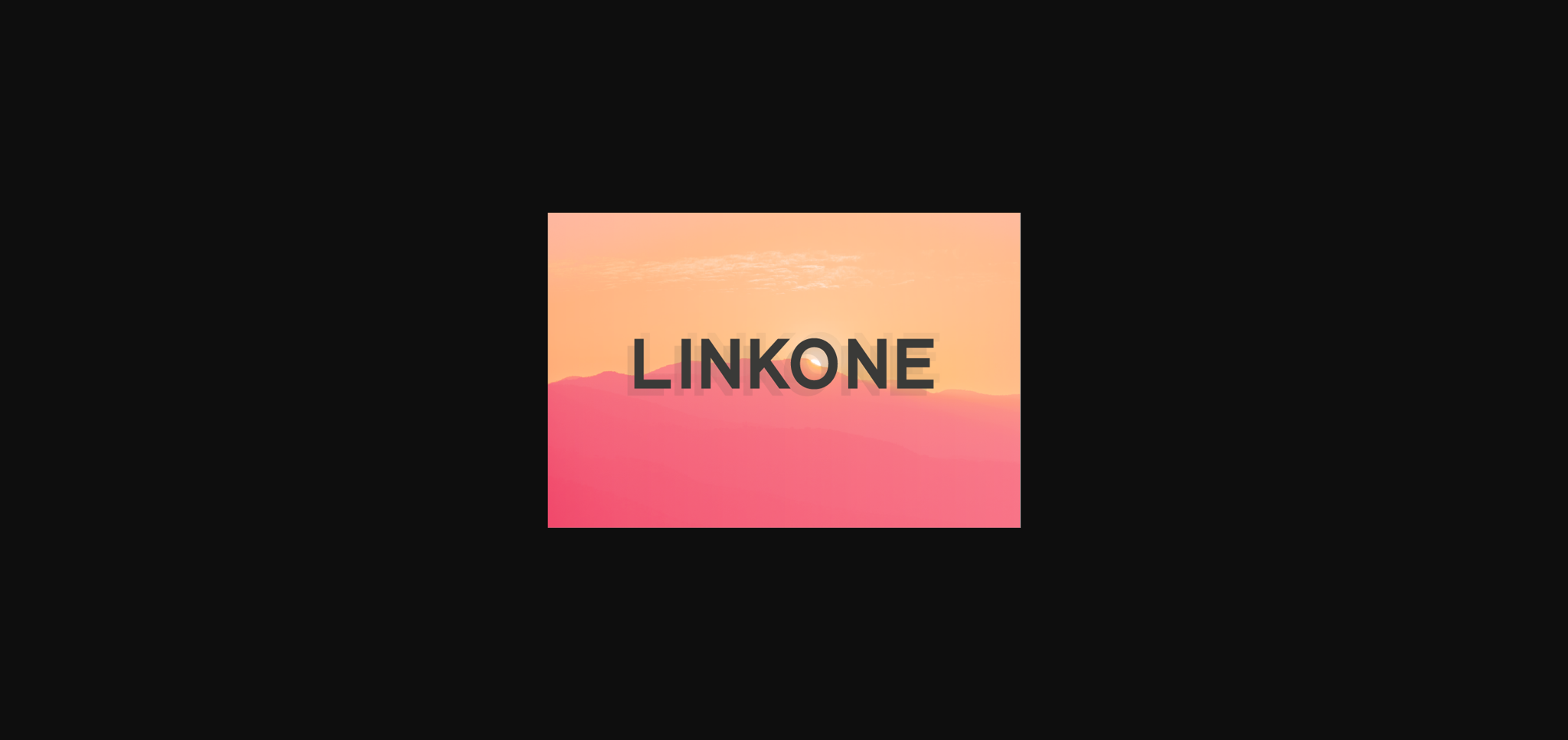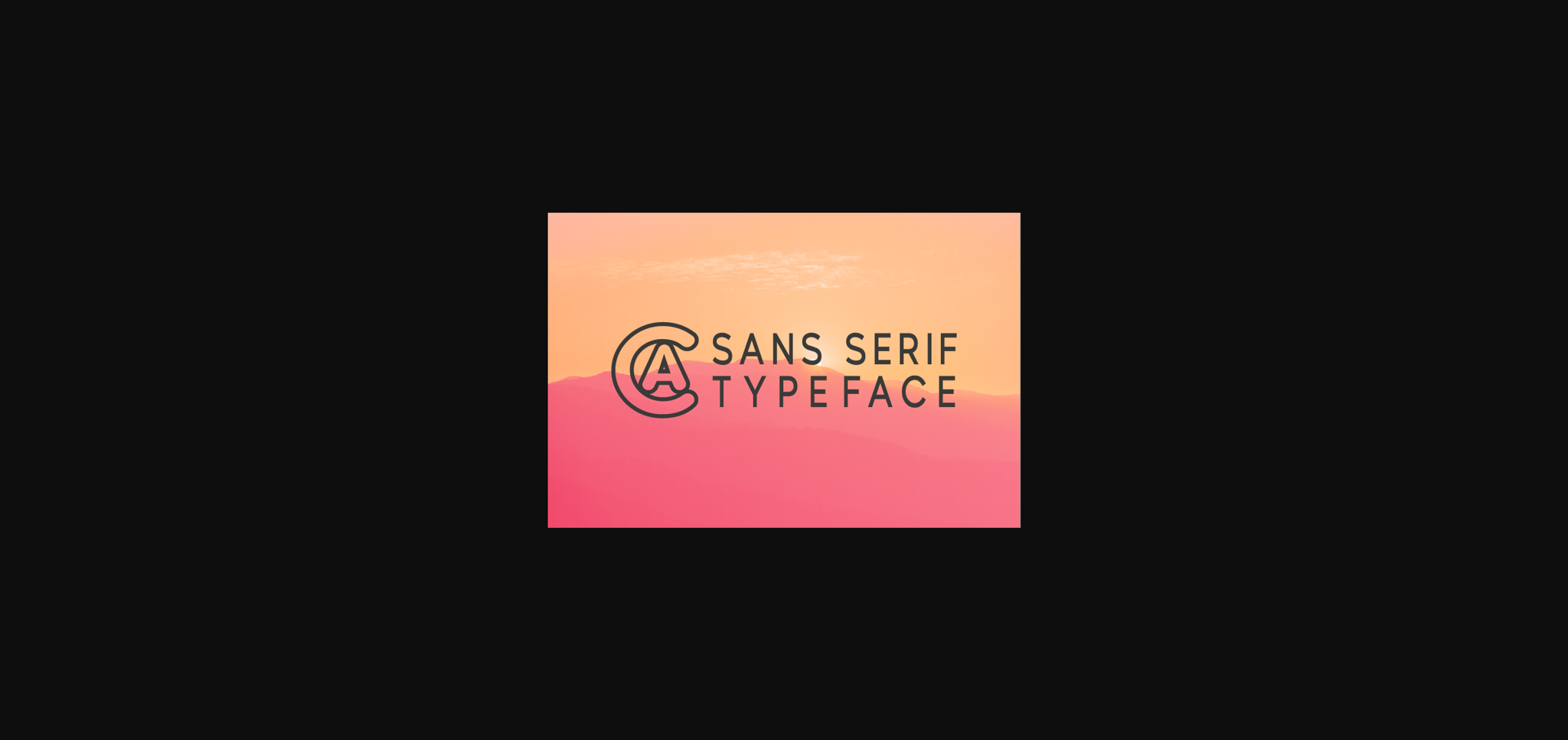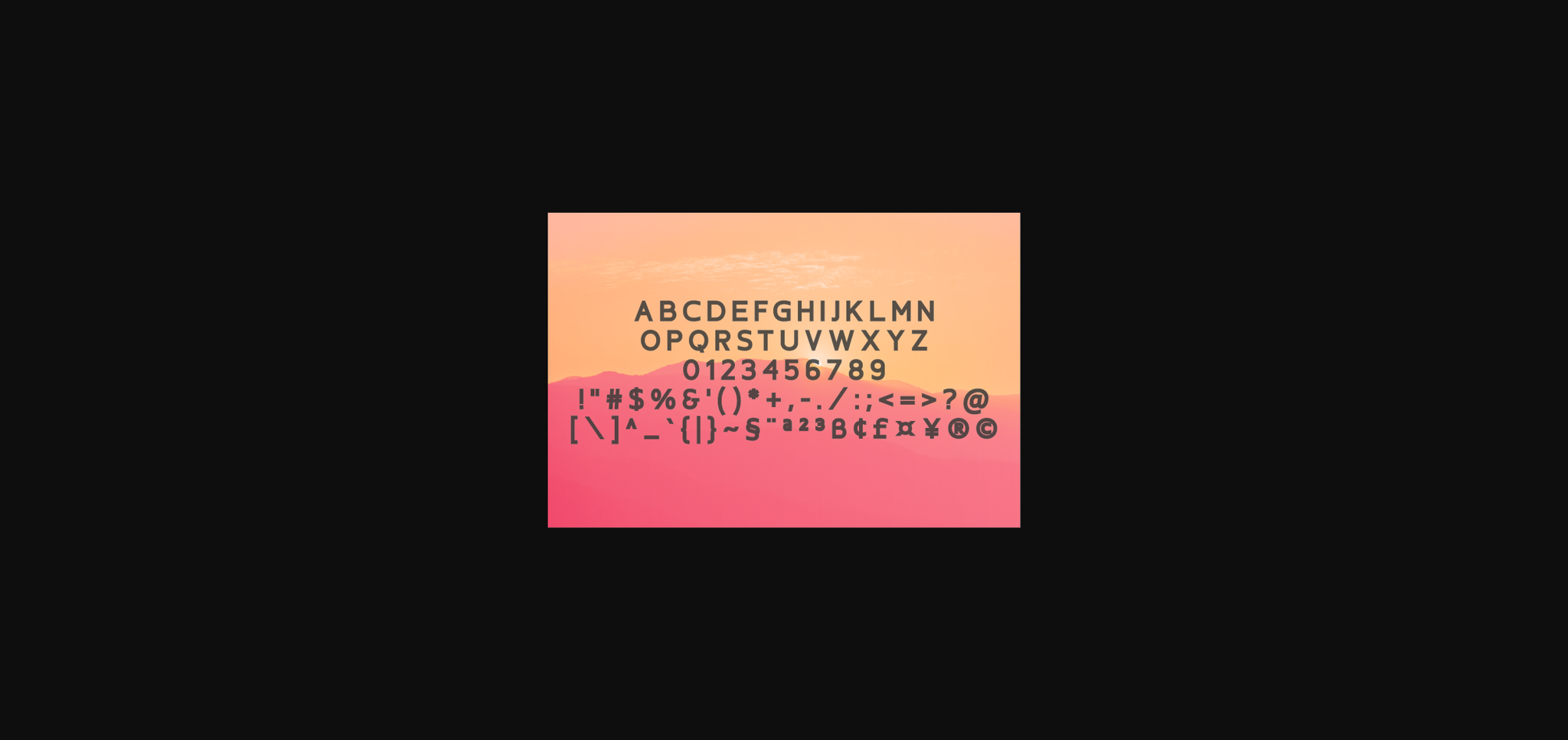
HomeSans Serif FontsLinkone Font Sans Serif Fonts Linkone Font FacebookXPinterestWhatsApp 1 of 5 ... Linkone Font Poster 2... Linkone Font Poster 3... Linkone Font Poster 4... Linkone Font Poster 5... About Linkone Font Linkone is a minimal, yet elegant sans serif font. Suitable to a wide variety of designs due to its neat and simple style, Linkone has the potential to become your favorite go-to font, no matter the occasion! DOWNLOAD NOW People also explored Marzipan Font Aristelle Kalvesta JNL Font Happiness Font Windy Font Beterdam Smith Font Sour Sugar Font Memories Font Summer Doodle Font 383 0 TagsLinkoneLinkone Font Previous articleCessavenya FontNext articleTredmout Font LEAVE A REPLY Cancel reply Comment: Please enter your comment! Name:* Please enter your name here Email:* You have entered an incorrect email address! Please enter your email address here Website: Save my name, email, and website in this browser for the next time I comment. Personal Use Free Love Heart Personal Use Free Read more about this font Nickainley Personal Use Free Read more about this font Pasile Personal Use Free Read more about this font Gonestones Personal Use Free Read more about this font BLOG How to Cut Any Font on Cricut: Convert a Font to SVG (Free) Turn any font into a clean SVG so it cuts crisp on Cricut - a quick 3-step workflow using a free font-to-SVG tool. Free Fonts Risk: Why Free Fonts Can Be Dangerous for Designers Fonts That Capture the Spirit of New York City The 10 Best Handwriting Fonts to Add Personality to Your Designs